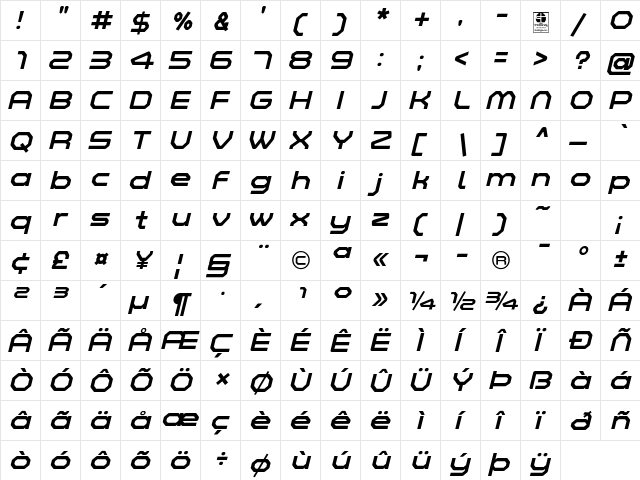
Zelta-Six Demo Italic
| Foundry | StudioTypo |
| Designer | Mehmet Abac |
Design Context for Zelta-Six Demo Typeface
Zelta-Six Demo is a composed and adaptable typeface that performs quietly and consistently across a wide range of design contexts. The dynamic lean of this cut emphasises speed and emphasis in any layout.
Pro Tip: Use Zelta-Six Demo for emphasis, pull quotes, and subheadings where its slanted energy can add rhythm to the layout.